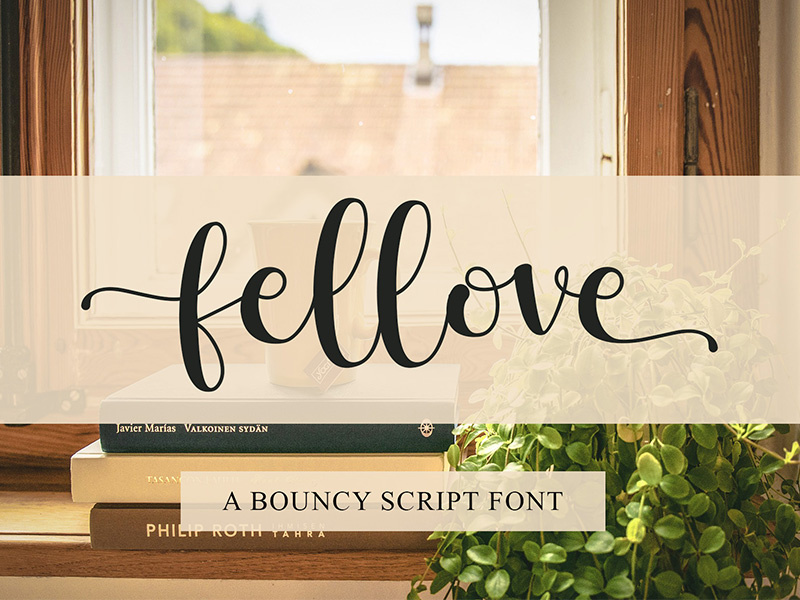
Fellove Font
Fellove is a bouncy fine looking handwritten font. This font has been made with great precision. This font is sweet to be applied on various designs. Fall for its ravishing style and use it to create gorgeous designs. This font is PUA encoded which means you can access all glyphs and swashes with ease!